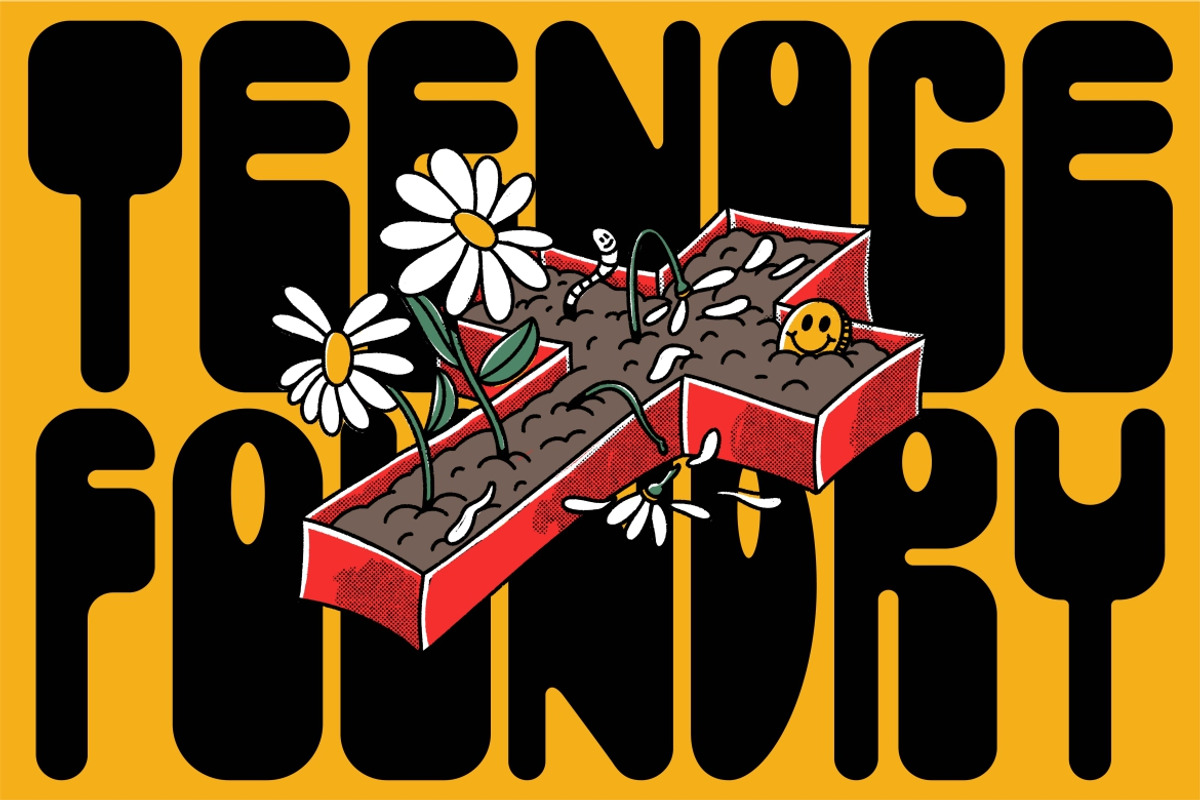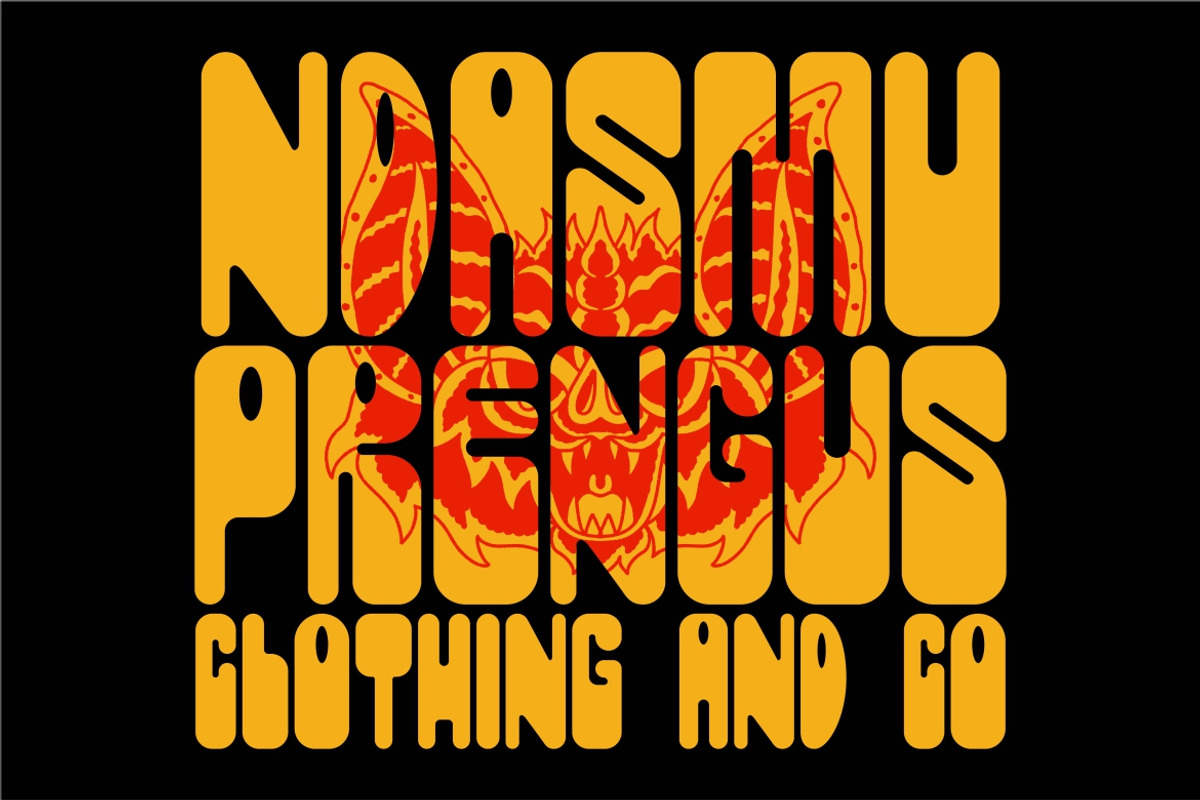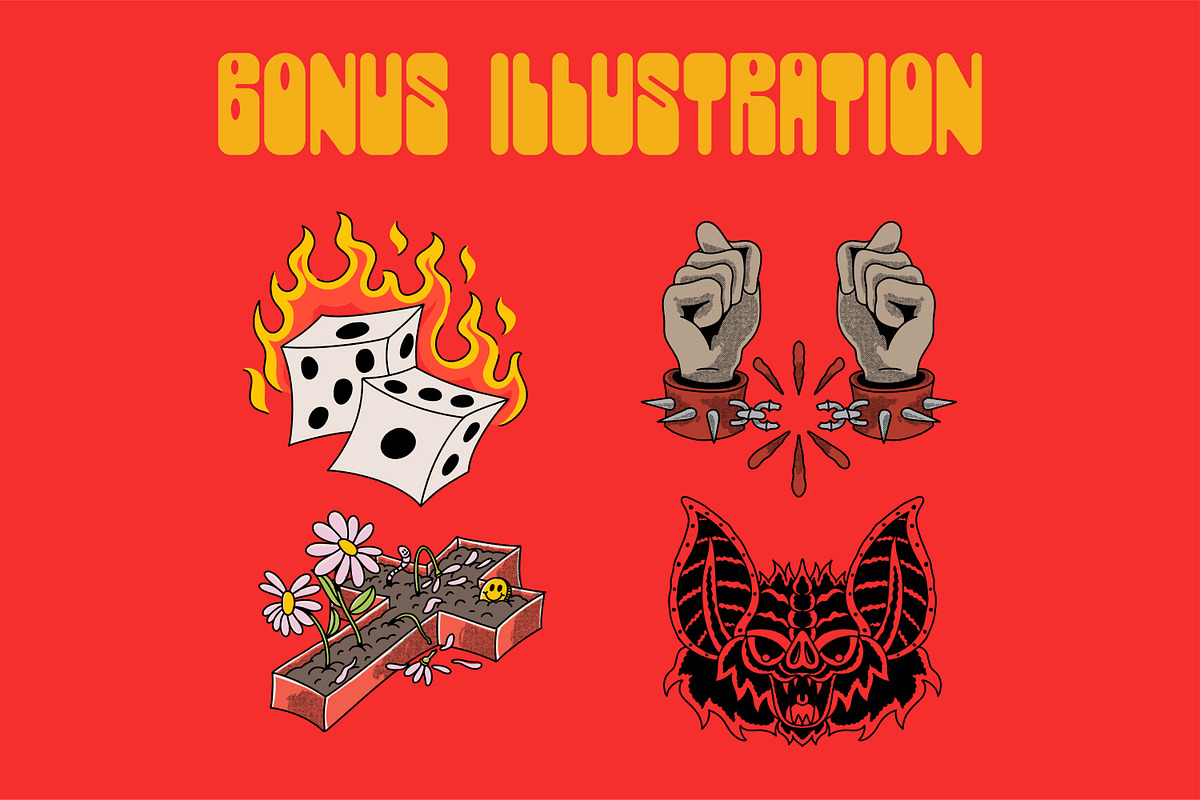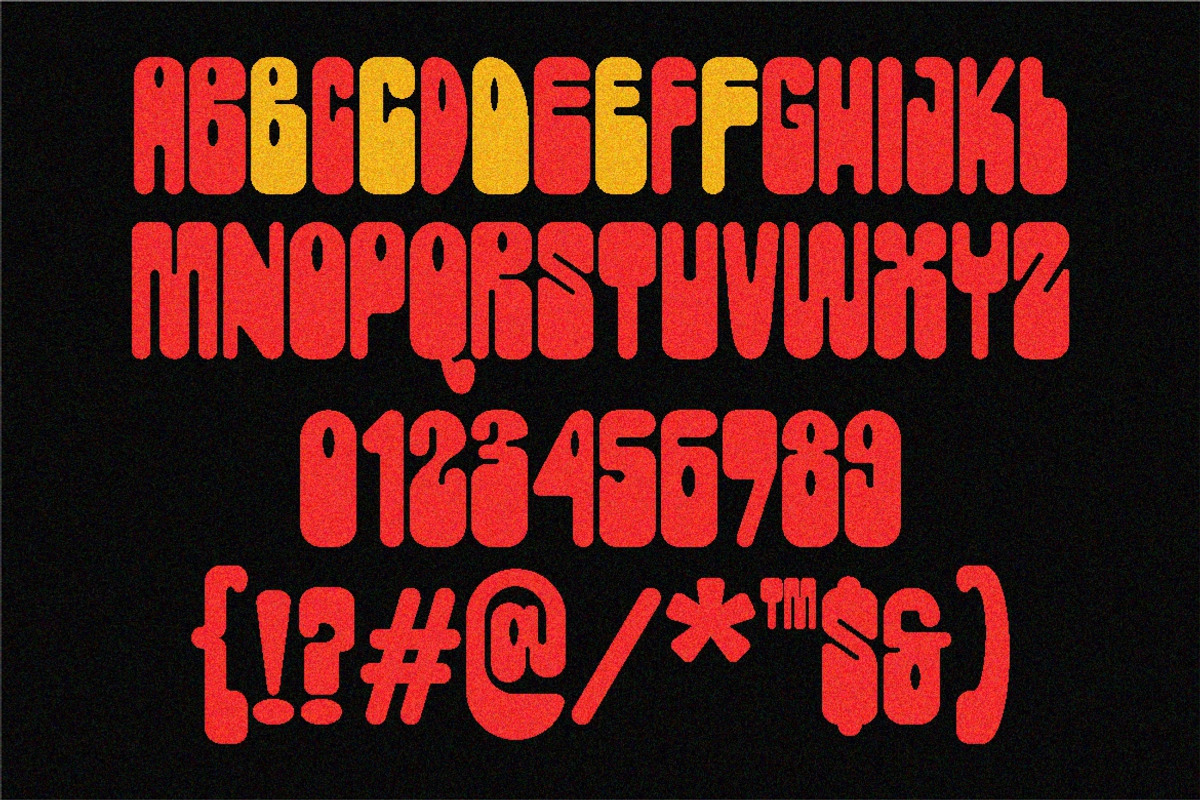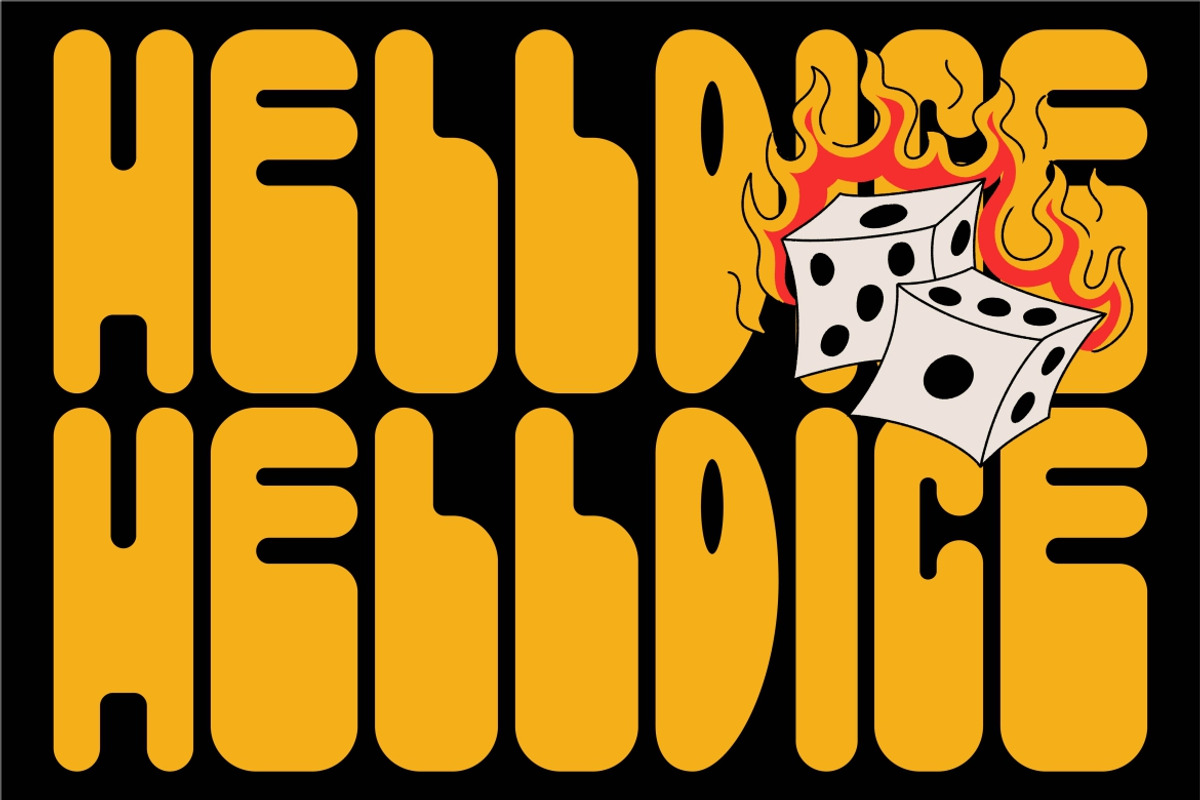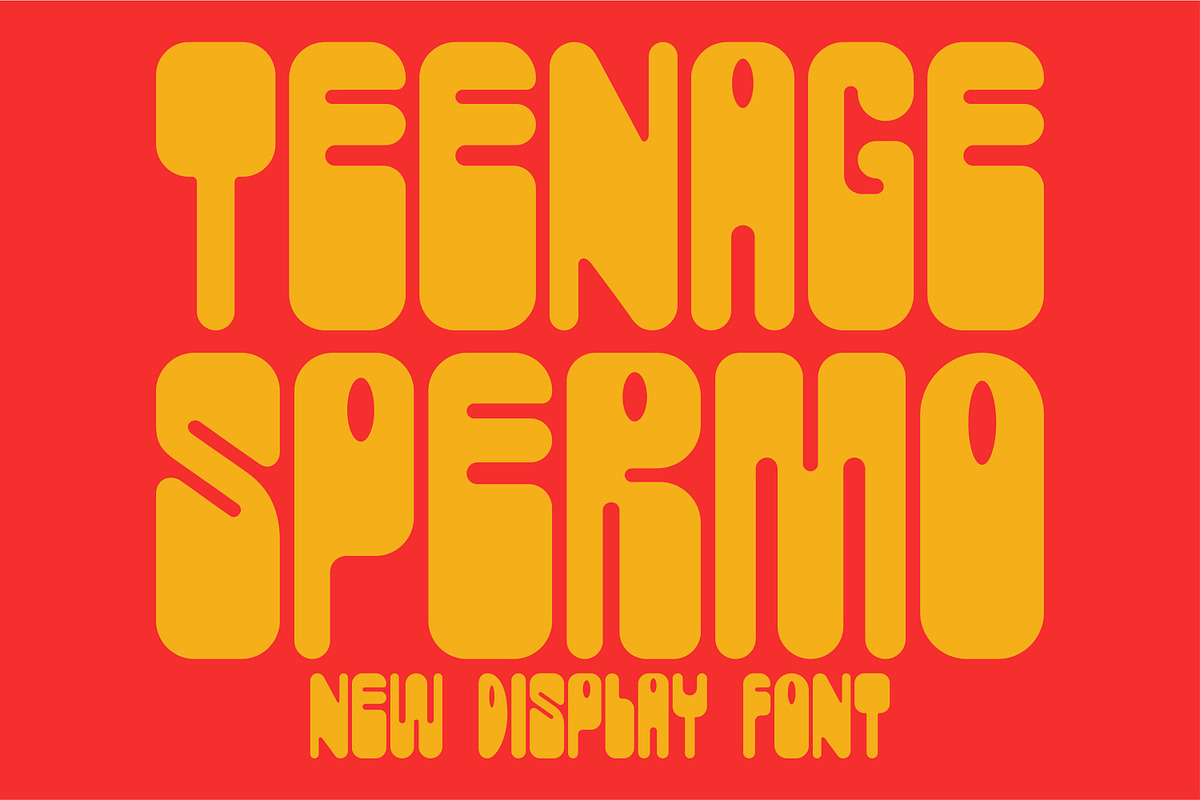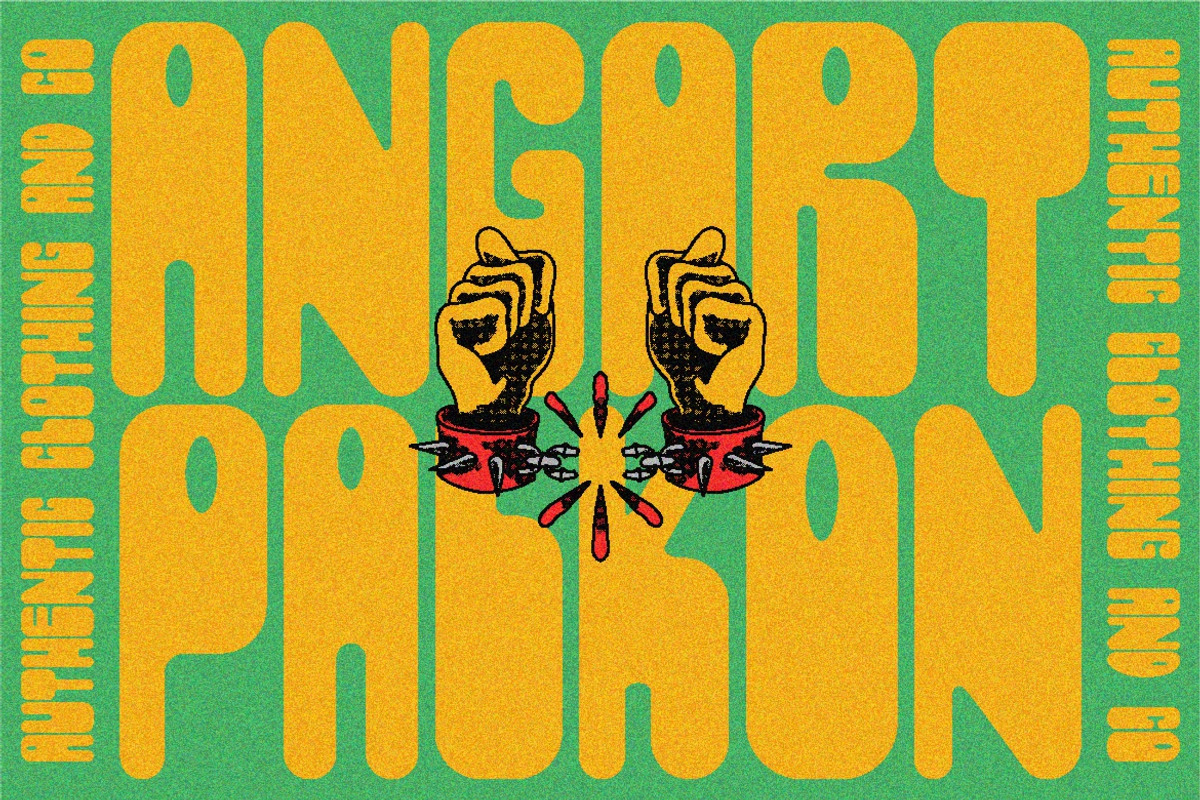
Teenage Spermo
Introducing by Teenage Foundry!
Teenage Spermo is a display font that brings a touch of edginess to your designs.
With its clean, neat curves and straight upright stance, this font is a perfect fit for projects that require a confident, youthful vibe. The strong lines and thick strokes give the font a bold and impactful look while its smooth lines and curves add a softer, more approachable touch.
Whether you're designing posters, flyers, logos or any kind of print or digital material, Teenage Spermo is sure to stand out and make a statement.
And to sweeten the deal, we’ve even included 4 illustrations to help spark your creativity and add some extra flair to your designs.